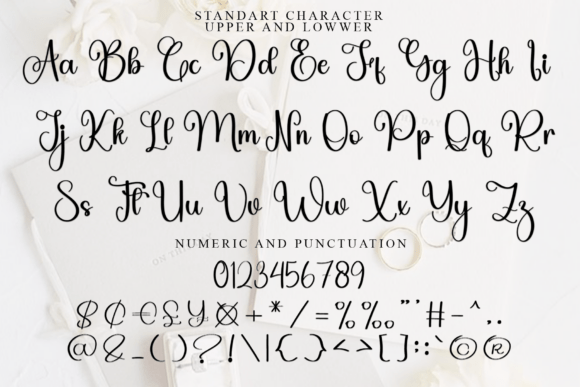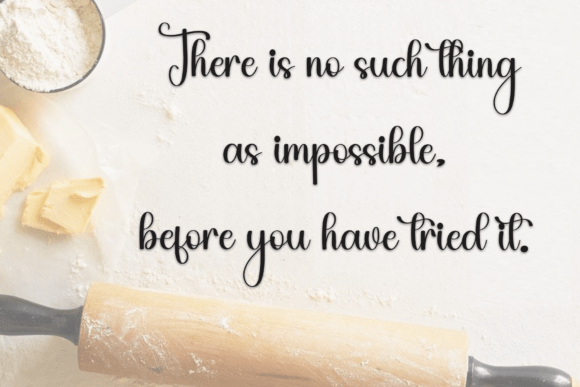
Introduction to Roasted Sandwich Font
As you’re brainstorming ideas for your holiday project, you stumble upon the perfect image – a winter wonderland scene with snowflakes gently falling onto a bustling town square. But what’s missing? The perfect font to capture the magic of the season. That’s where the Roasted Sandwich Font comes in – a festive and merry typeface that adds a touch of enchantment to your designs.
This design resource is a must-have for any creative project, from greeting cards to gift tags. With its decorative elements and whimsical flair, the Roasted Sandwich Font brings a cheerful and nostalgic ambiance to your words. And the best part? It’s PUA encoded, making it easy to access all the amazing glyphs and ligatures. Whether you’re working on a high-quality design or just want to add a personal touch, this font is sure to shine.
Key Features of Roasted Sandwich Font
- High-quality design resource with a unique, modern aesthetic
- Unique characteristics: bold lines, rounded edges, and a rustic feel
Honest Review: Roasted Sandwich Font
I recently came across the Roasted Sandwich Font and was excited to give it a try. As a designer, I’m always on the lookout for high-quality design resources to elevate my creative projects. The Roasted Sandwich Font did not disappoint.
- ✨ The font has a unique and quirky design that adds a touch of personality to any project.
- ⚠️ The font is only available in a single weight, which may limit its versatility in certain designs.
- ⚠️ The font’s quirky design may not be suitable for all types of projects, particularly those that require a more professional or formal tone.
Overall, I’m impressed with the Roasted Sandwich Font. It’s a great addition to any designer’s toolkit and can add a fun and creative touch to a variety of projects. With a little creativity, the limitations of the font can be worked around, and the results can be truly unique and effective.
Common Use Cases for Roasted Sandwich Font
Roasted Sandwich Font is perfect for creative projects such as:
1. Food branding and packaging design.
2. Social media graphics and advertisements.
3. Blog posts and articles with a unique style.
4. Business cards and marketing
Q: Is the Roasted Sandwich Font suitable for use in print and digital projects?
Yes, the Roasted Sandwich Font is a high-quality design resource that can be used in a variety of print and digital projects, including posters, flyers, business cards, and web design. Its high-quality design and transparent background make it an excellent choice for designers working on creative projects that require a high level of visual sophistication.